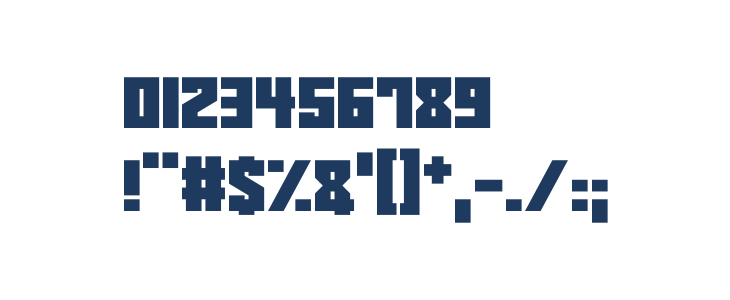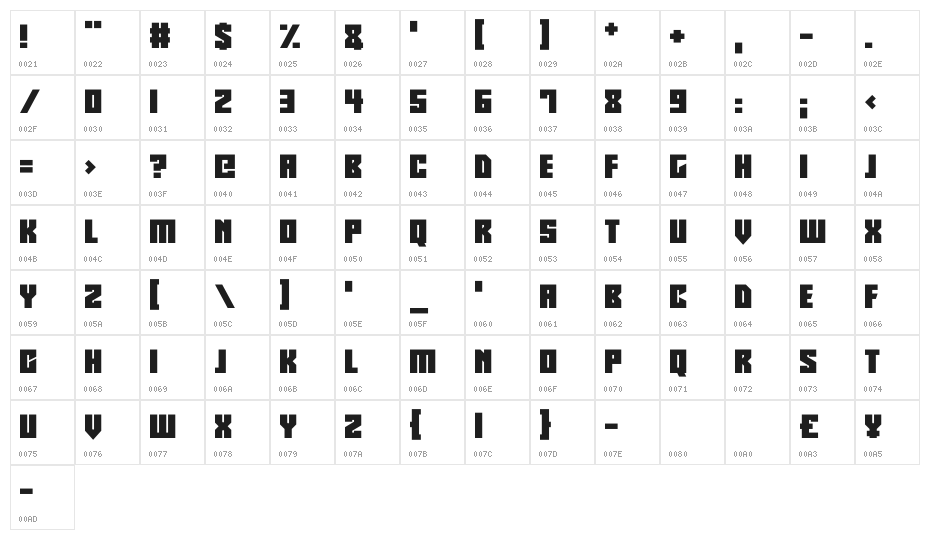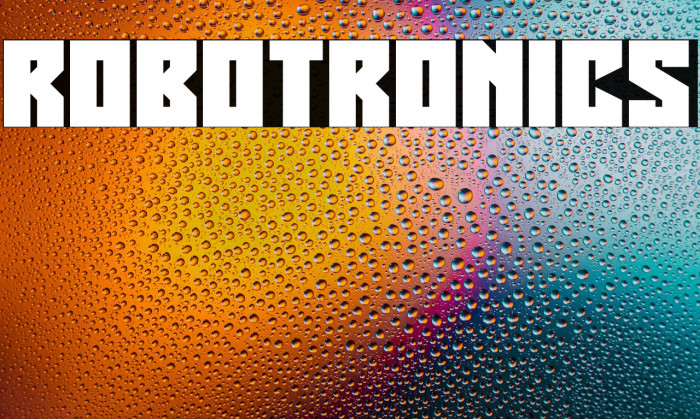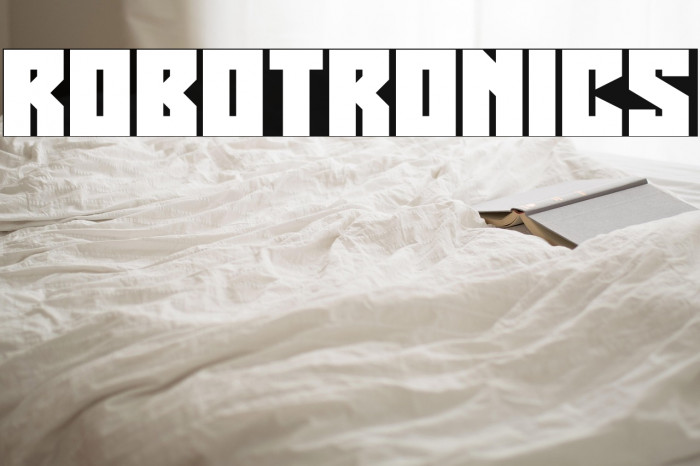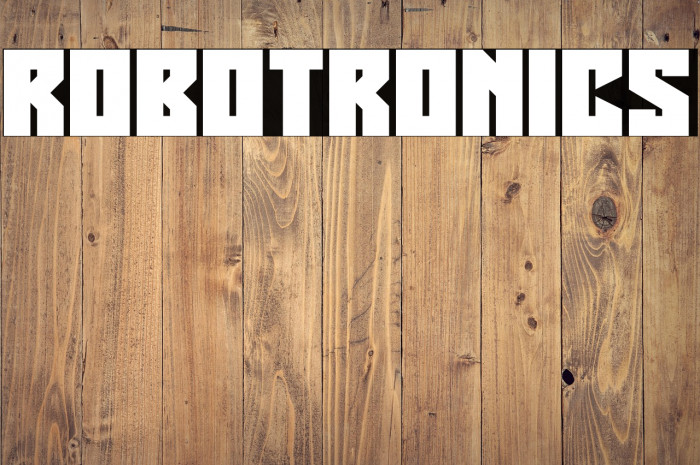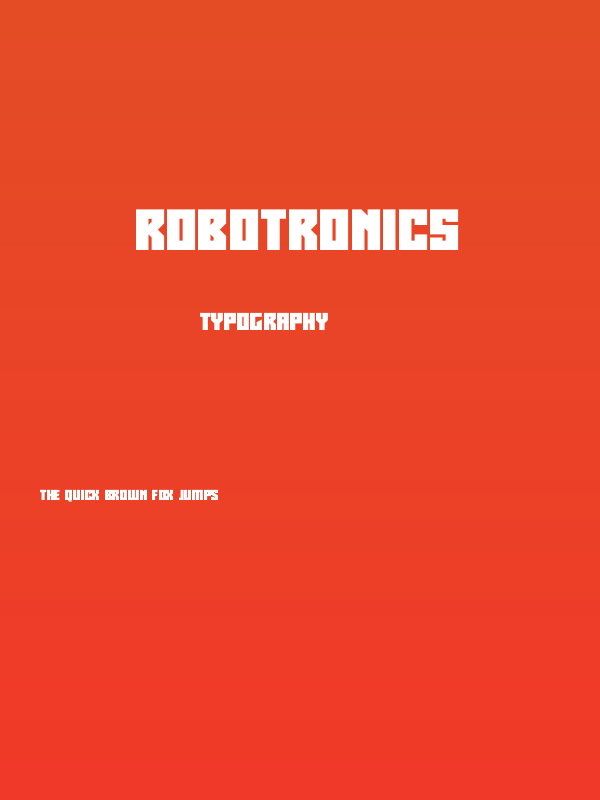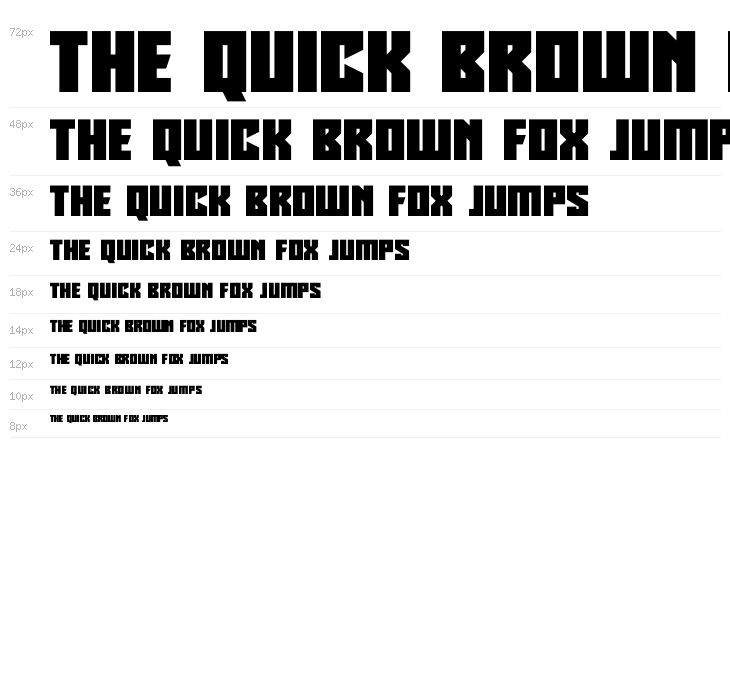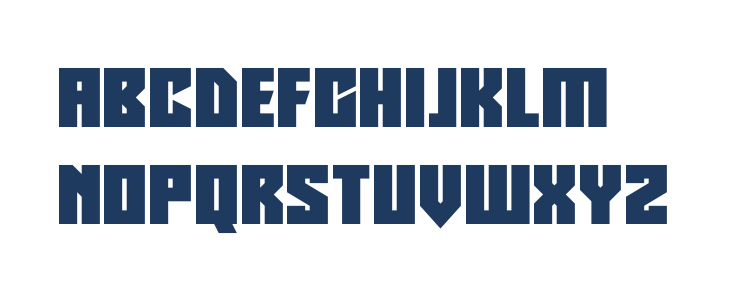
Robotronics Font
Robotronics Description
This font features a bold, geometric style with strong, angular lines and a futuristic aesthetic. The characters are uniformly wide, giving a blocky and robust appearance. Each letter is crafted with precision, maintaining a consistent height and width throughout, which enhances its modern and industrial feel. The uppercase and lowercase letters share similar design traits, ensuring a cohesive look. The numerals and special characters are equally bold, complementing the overall design. This font is ideal for projects that require a strong visual impact and a contemporary edge.